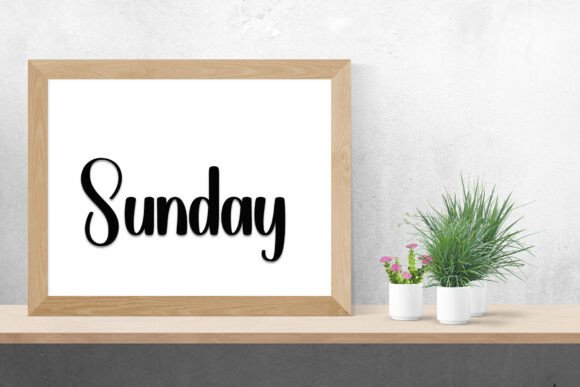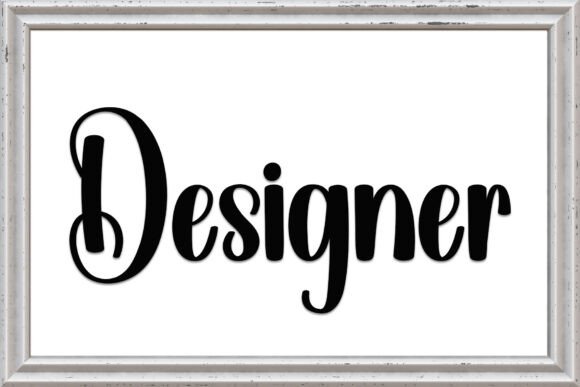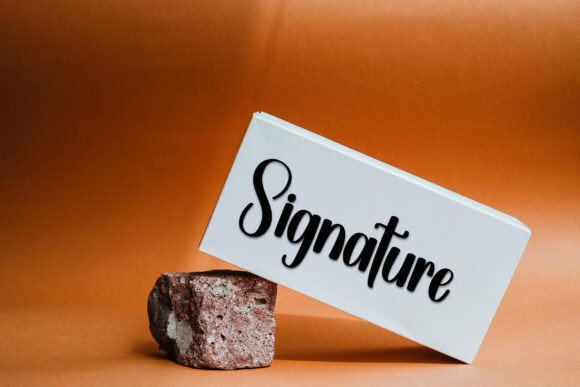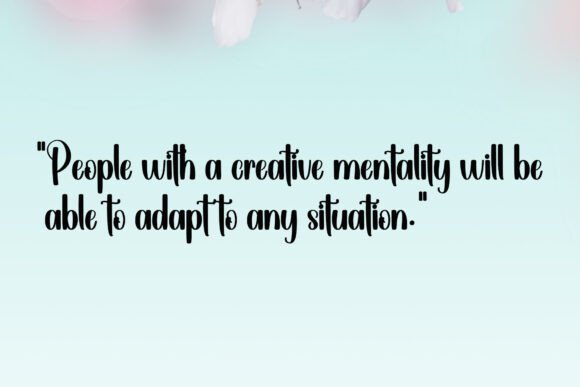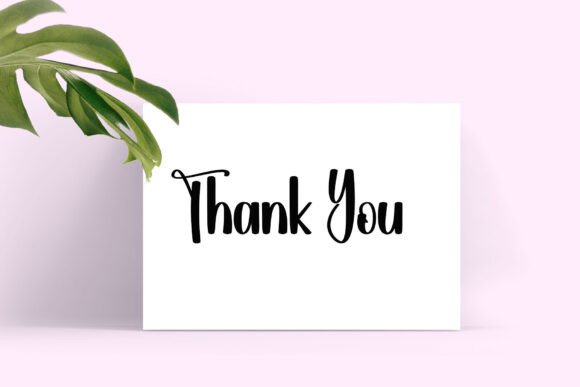
Introducing Brushes Font: Elevate Your Creativity with Elegance
Are you a designer, crafter, or DIY enthusiast looking for a font that can add a touch of magic to your creative projects? Look no further than Brushes Font, a beautiful script font designed to bring elegance and sophistication to your work. In this article, we’ll explore the features and benefits of Brushes Font, and show you how it can help you turn your ideas into stunning pieces of art.
A Font that Combines Elegance and Creativity
Brushes Font is a carefully crafted script font that boasts a unique blend of elegance and playfulness. Its flowing lines and delicate strokes make it perfect for a wide range of creative projects, from Instagram posts and social media graphics to calligraphy scripts and DIY crafts. Whether you’re looking to add a personal touch to your work or create something truly special, Brushes Font is the perfect choice.
Key Features of Brushes Font
- PUA Coded: Brushes Font is PUA (Private Use Area) coded, which means you can easily access all the amazing glyphs and ligatures without any hassle. This feature makes it simple to get creative and experiment with different styles and effects.
- Magical Script Font: Brushes Font is designed to add a touch of magic to your work. Its unique and elegant design makes it perfect for creating stunning calligraphy scripts, social media graphics, and more.
- Multipurpose: Brushes Font is versatile and can be used for a wide range of creative projects, from DIY crafts and paper crafting to digital design and social media graphics.
Brushes Font is a dream come true for designers and crafters who want to add a personal touch to their work. Its elegant design and versatility make it perfect for:
- Instagram and Social Media Graphics: Create stunning social media graphics, Instagram posts, and stories that stand out from the crowd.
- Calligraphy Scripts: Use Brushes Font to create beautiful calligraphy scripts for DIY projects, wedding invitations, and more.
- DIY Crafts and Paper Crafting: Add a touch of elegance to your DIY crafts and paper crafting projects with Brushes Font.
Benefits of Using Brushes Font
By using Brushes Font, you’ll enjoy a range of benefits, including:
- Ease of Use: Brushes Font is easy to use and comes with a simple, user-friendly design.
- High-Quality Design: Brushes Font is designed to deliver high-quality results, even at large sizes.
- Time-Saving: With Brushes Font, you can create stunning creative projects in no time, thanks to its extensive range of glyphs and ligatures.